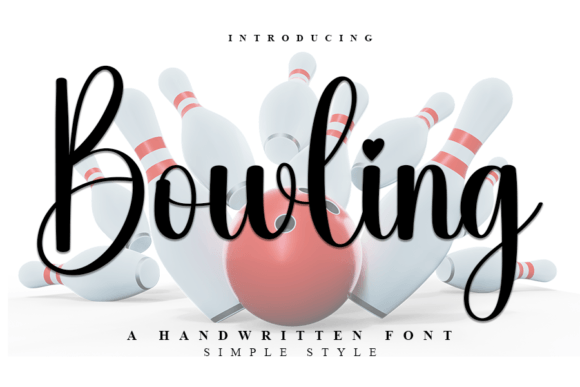
Prepare yourself to be spellbound by Bowling Font, a script font family that is the epitome of elegance and charm. This exquisite creation by the talented Ade Studio will elevate your designs to breathtaking heights. Let Bowling Font be your muse and watch your creativity soar.
Bowling Font's graceful strokes and playful curves will add a touch of magic to your designs. Its meticulously crafted characters dance across the page, creating an aura of sophistication and artistry. Whether you're crafting logos, invitations, or product labels, Bowling Font will lend an unforgettable charm to your work.
Immerse yourself in a world of limitless possibilities with Bowling Font. Its versatility is simply enchanting, making it the perfect companion for a wide array of design projects. From delicate branding elements to captivating social media graphics, Bowling Font will transform your ideas into visual masterpieces.
With Bowling Font in your arsenal, you'll never be short of inspiration. Its effortless flow and captivating personality will ignite your creativity, urging you to explore uncharted design territories. Unleash your inner artist and let Bowling Font guide you towards exceptional designs that leave a lasting impression.